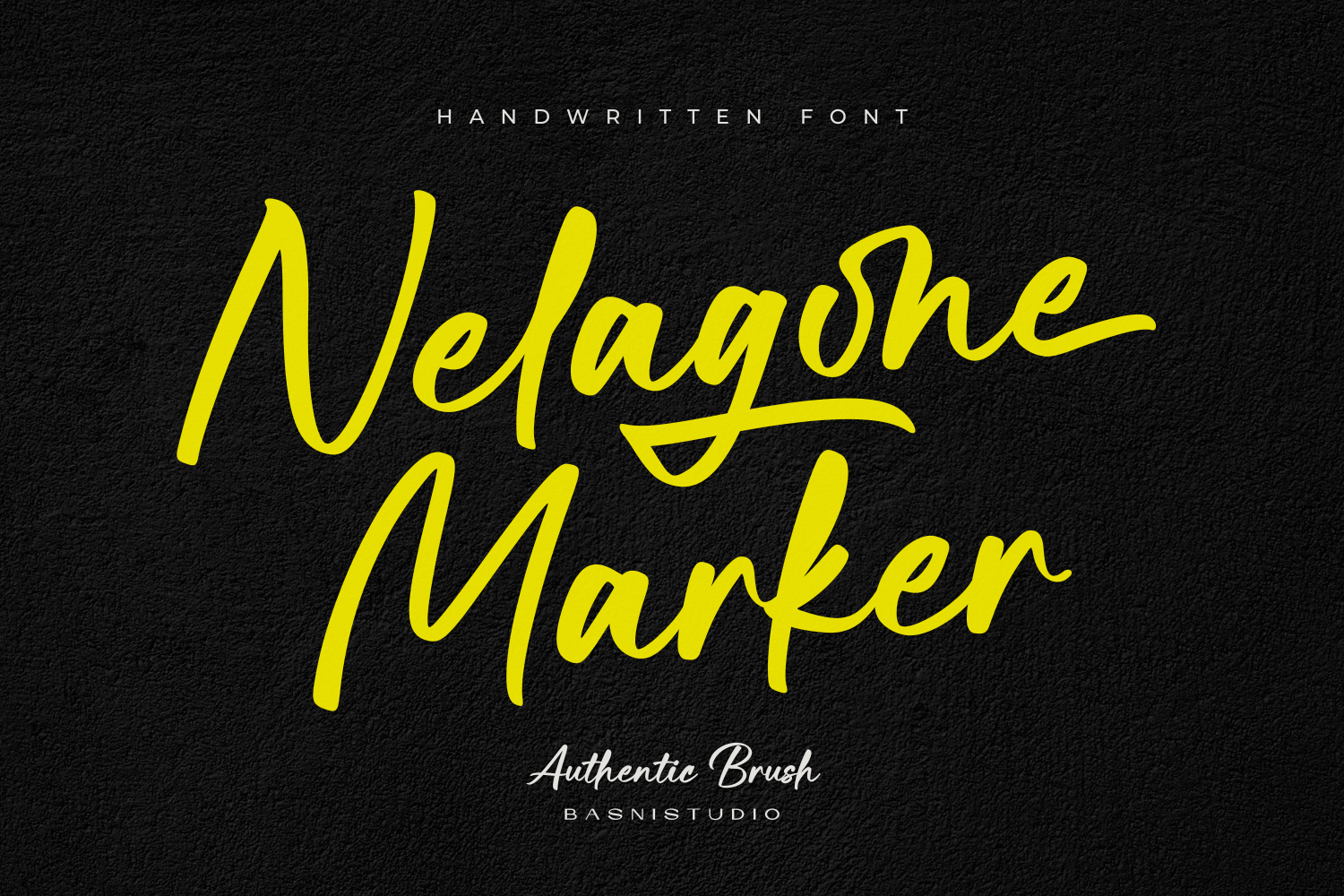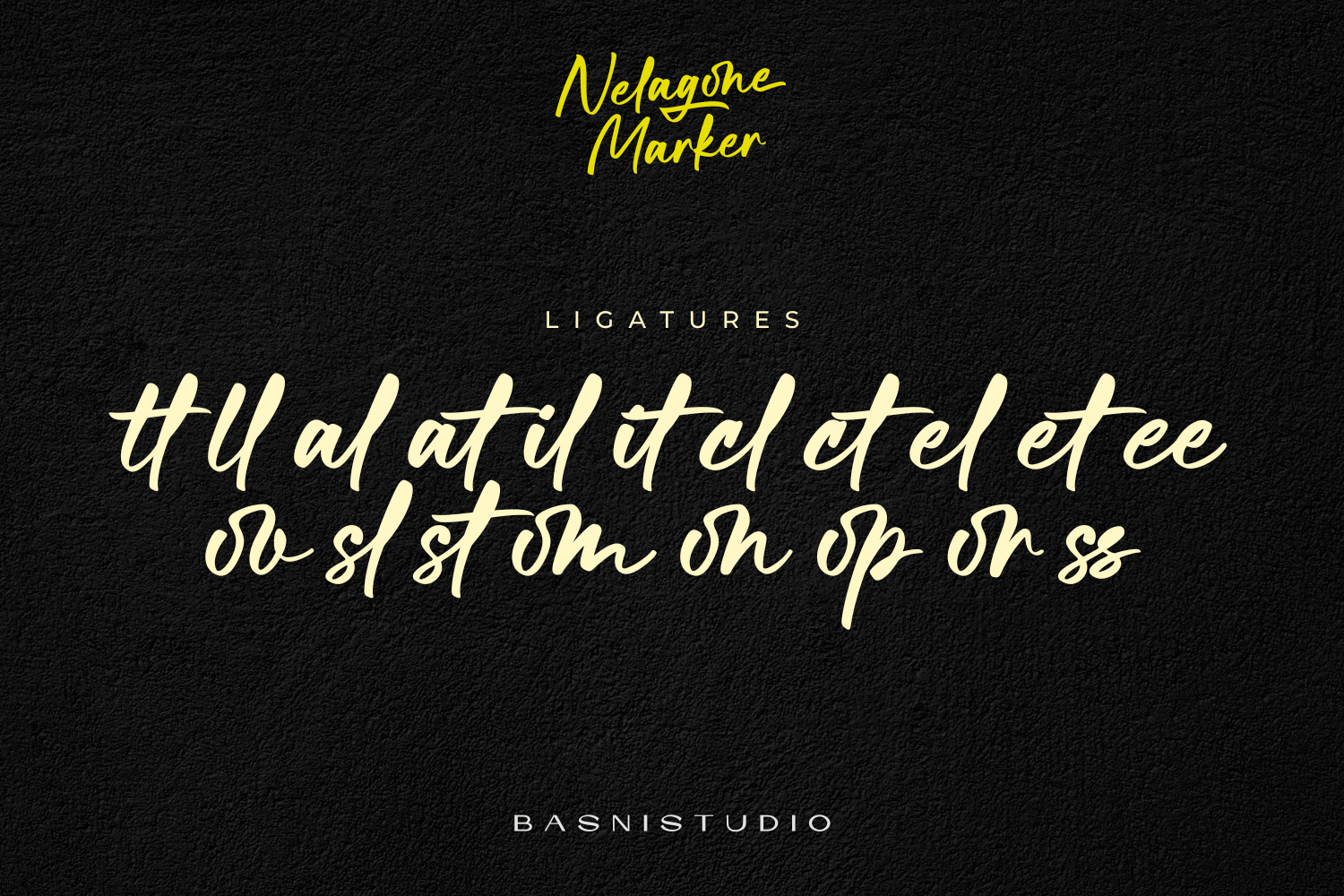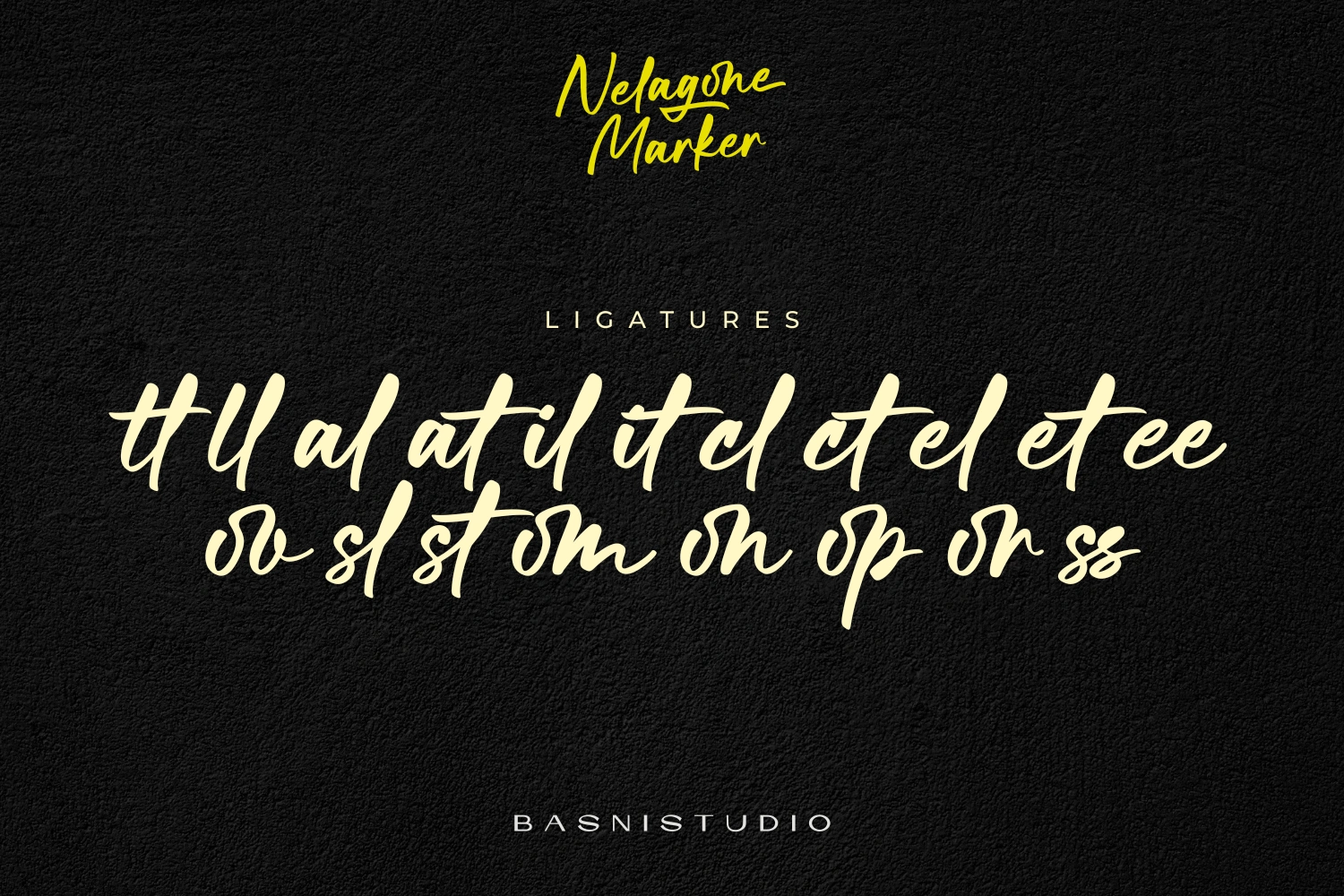
Nelagone Marker – Casual Marker Font is a bold handwritten typeface inspired by real marker strokes. It brings a fun, energetic, and expressive feel to your designs, making them stand out with a casual yet confident personality.